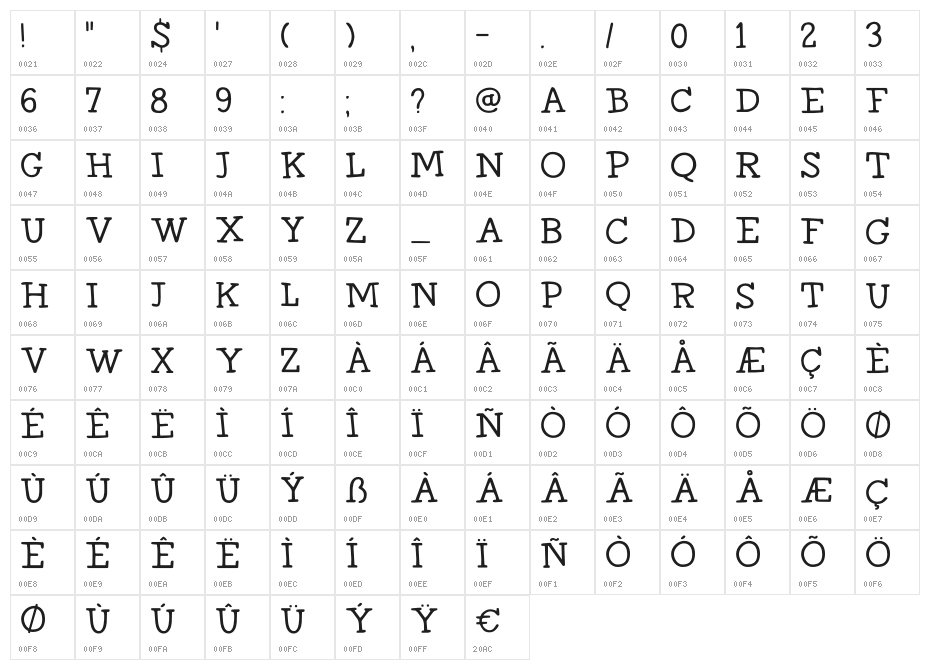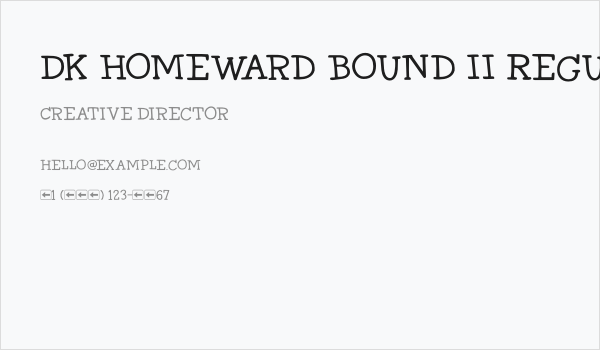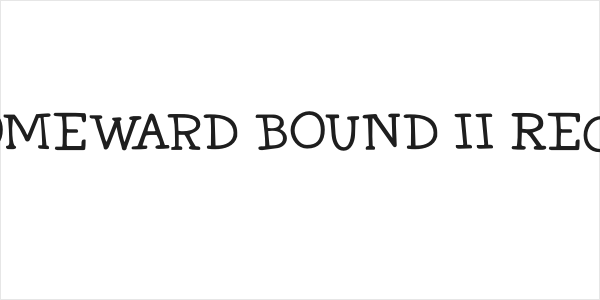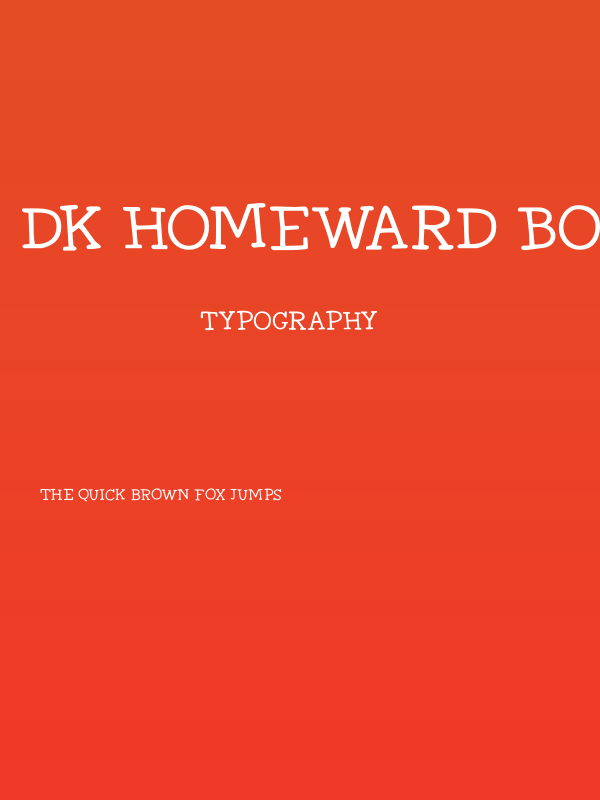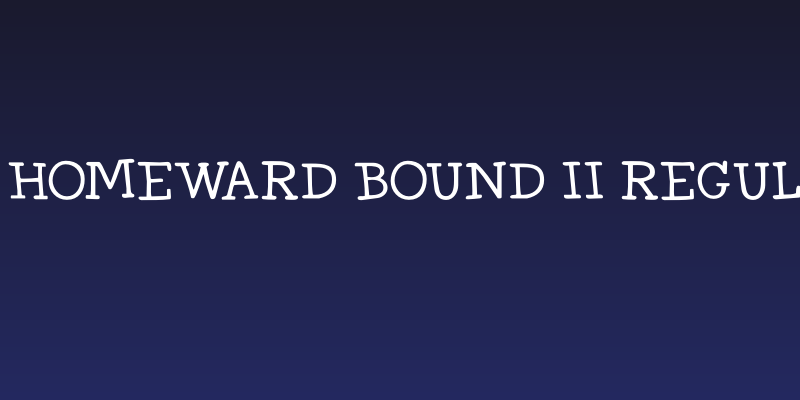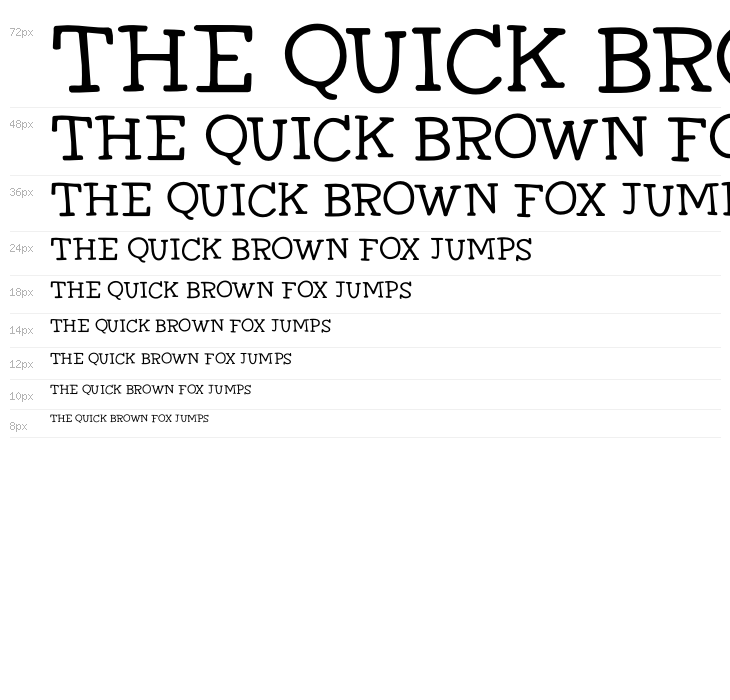
DK Homeward Bound II Regular Font
DK Homeward Bound II Regular Description
This font features a playful and slightly whimsical design, characterized by its rounded and slightly irregular letterforms. The strokes are consistent in thickness, giving it a uniform appearance while maintaining a hand-drawn aesthetic. The uppercase letters are bold and prominent, while the lowercase letters follow a similar style, ensuring readability. The numerals are clear and distinct, matching the overall playful style of the font. Special characters are included, adding versatility for various uses. This font's unique style makes it suitable for creative projects that require a touch of personality and charm.
Overall StyleWhimsical, Playful
Use CaseHeadlines, Logos, Creative projects
Proposed ProjectsIdeal for children's books, playful branding, greeting cards, and creative posters.